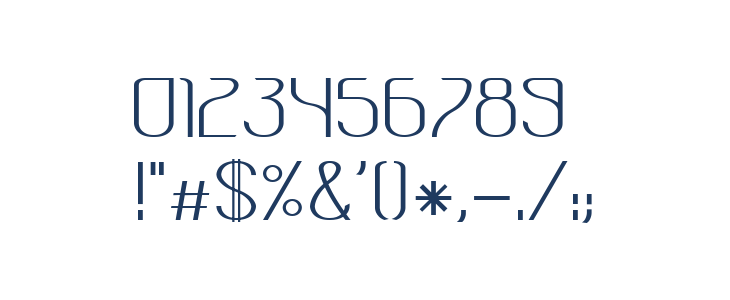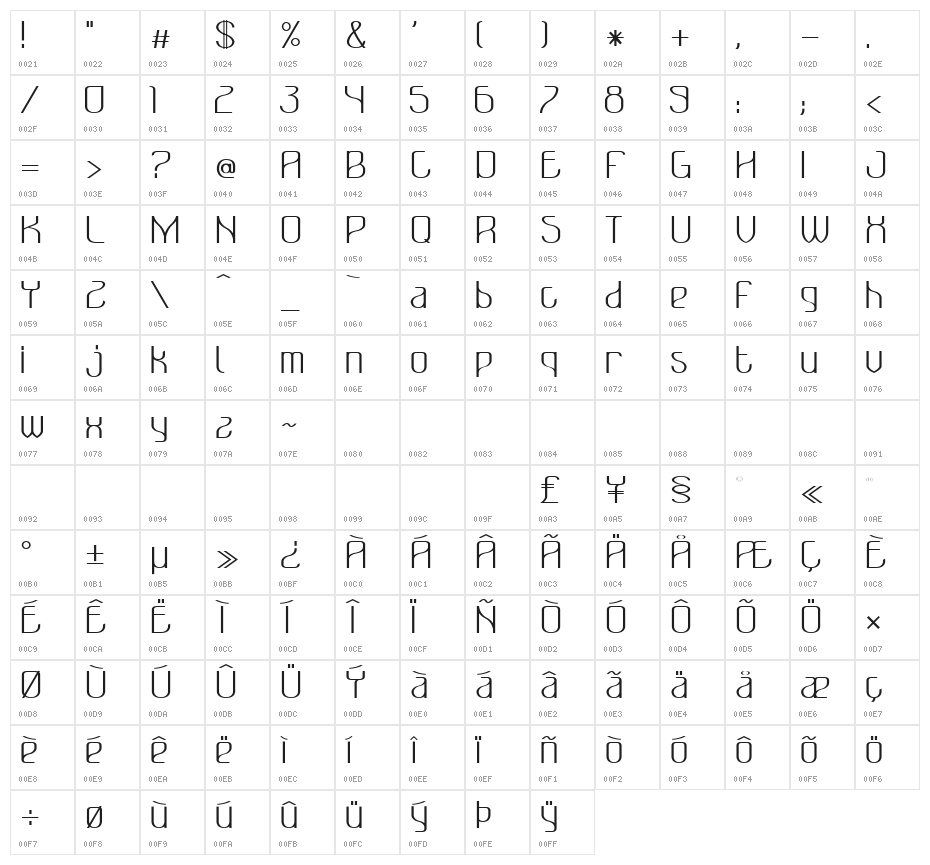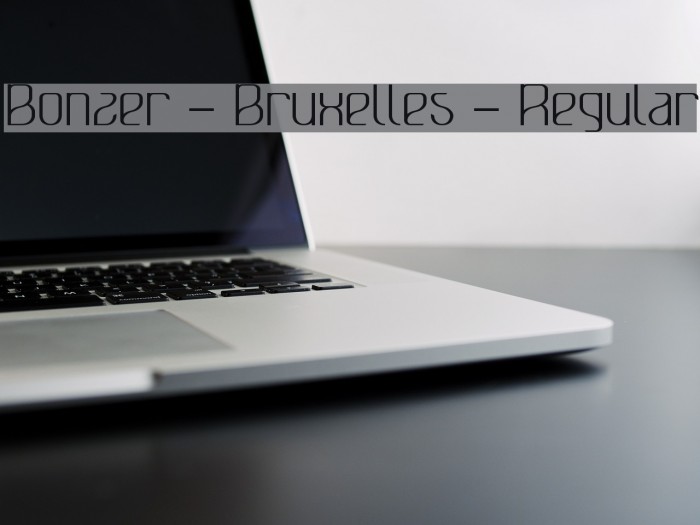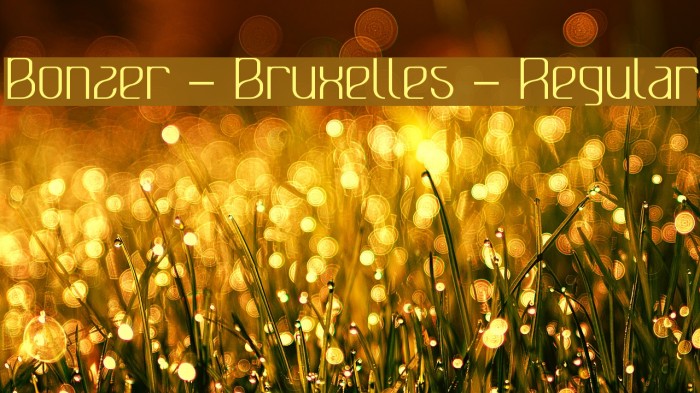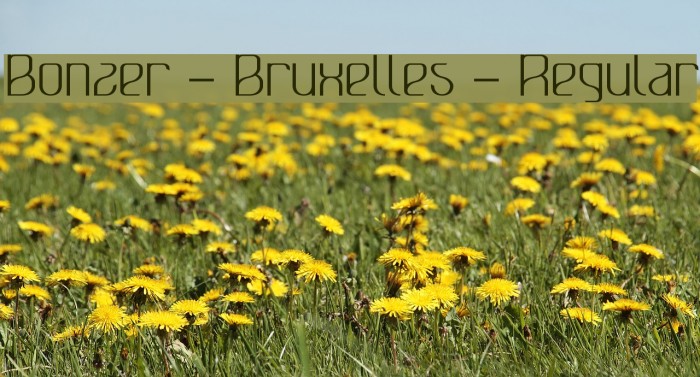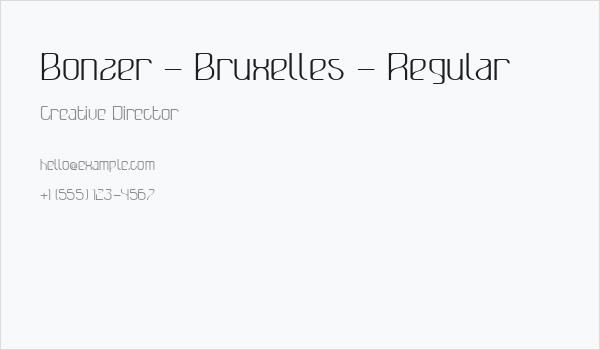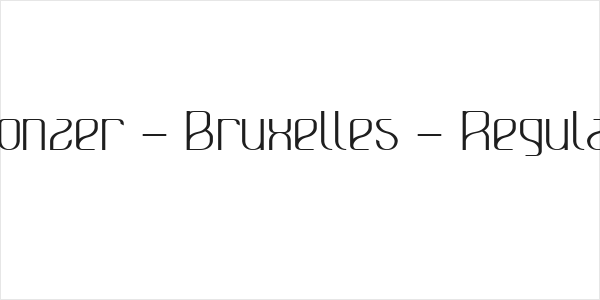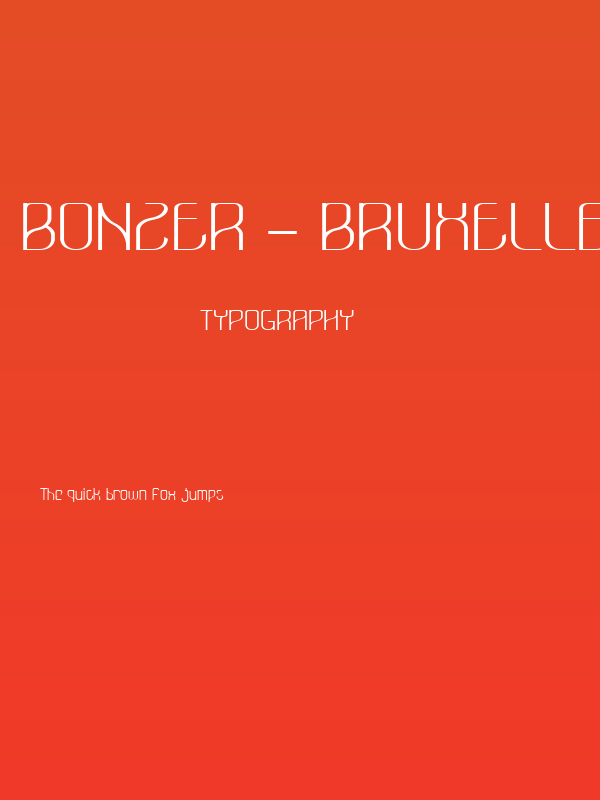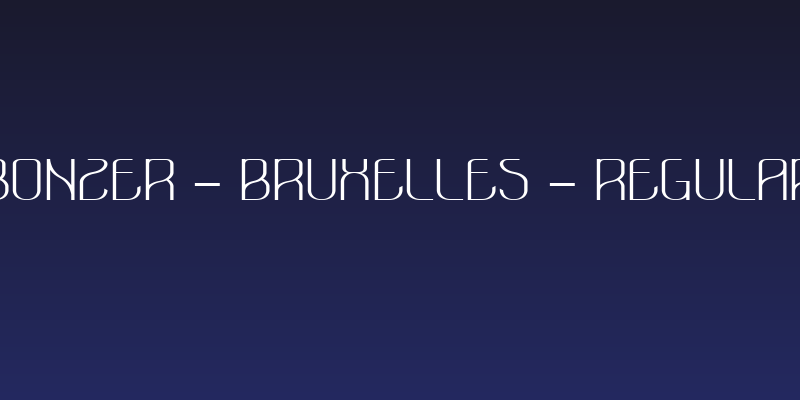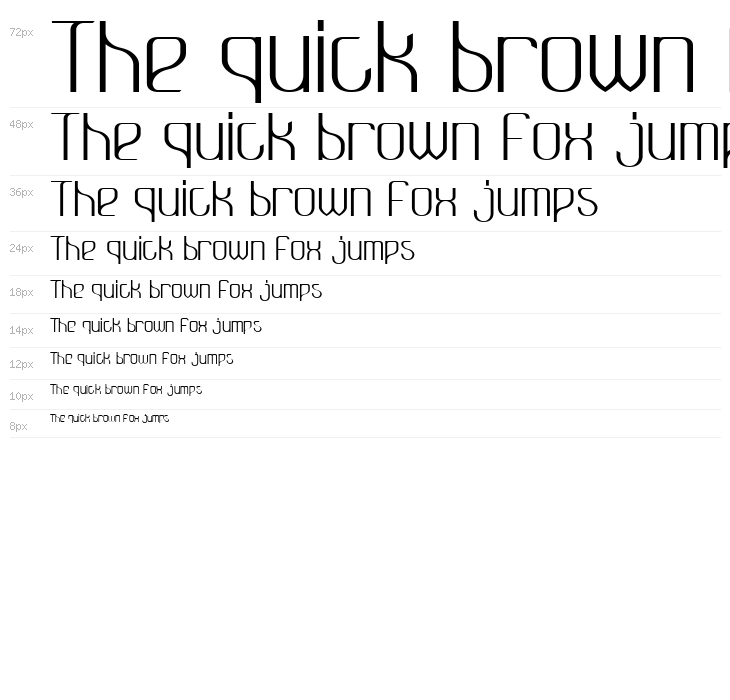
Bonzer - Bruxelles - Regular Font
Bonzer - Bruxelles - Regular Description
This font features a modern and sleek design with a geometric structure. The characters have a unique blend of rounded and straight edges, creating a futuristic yet approachable aesthetic. The uppercase letters are tall and narrow, while the lowercase letters maintain a consistent height, enhancing readability. Numbers are distinct and align well with the overall style, making them suitable for digital displays. Special characters are crafted with the same attention to detail, ensuring uniformity across all glyphs. The font's clean lines and balanced proportions make it versatile for various design applications.
Use CaseHeadlines, Logos, Digital interfaces
Proposed ProjectsIdeal for tech branding, digital interfaces, modern advertising, and editorial design.